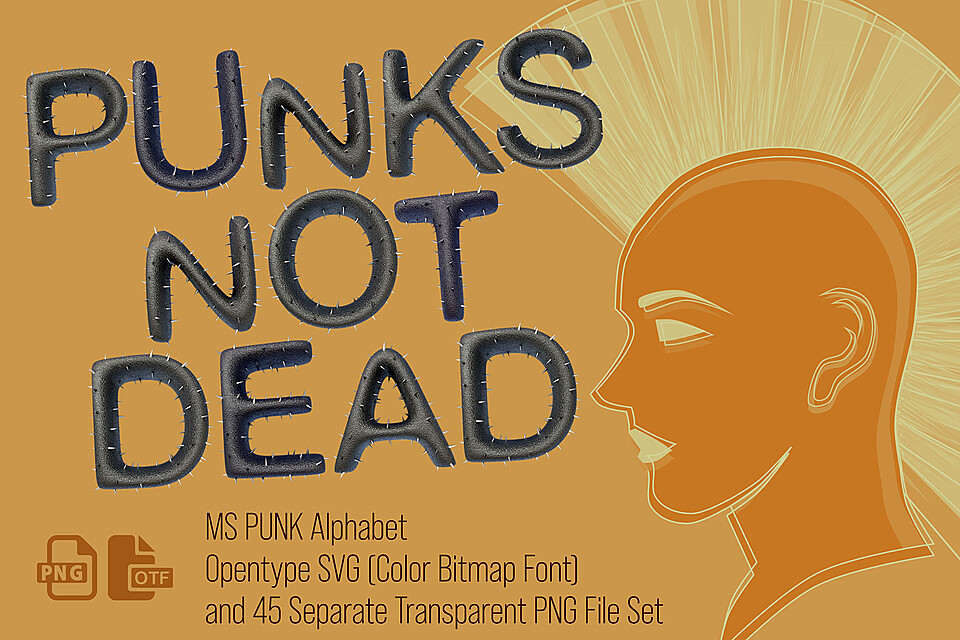
MS Punk Font Opentype SVG & PNGs
Each letter is modelled and rendered in a 3D Application, also converted into an Opentype SVG (Color Font)
Basic western uppercase letters
Basic Punctuation and Symbols
Numbers